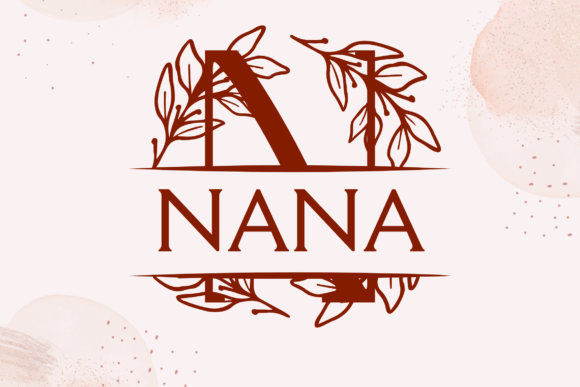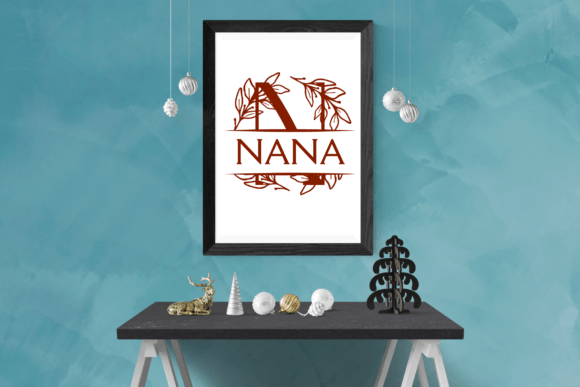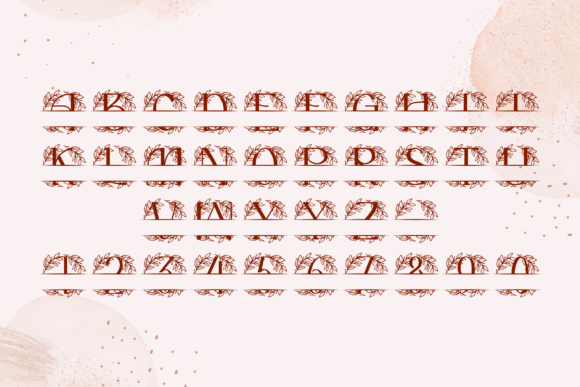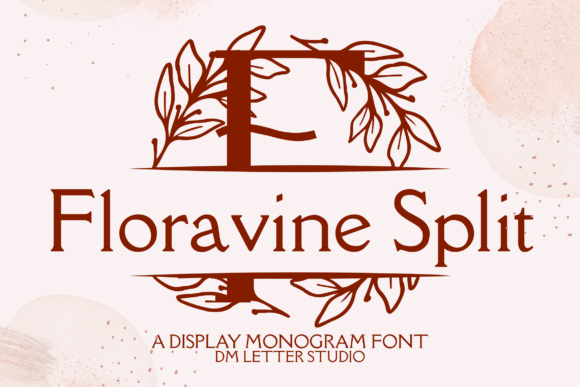
Introducing Floravine Split Monogram Font: Elevate Your Designs with Elegant Floral-Vine Emblems
Are you a designer or crafter looking for a unique and elegant way to add a personal touch to your creations? Look no further than the Floravine Split Monogram Font. This beautiful split monogram font transforms simple initials into stunning floral-vine emblems, perfect for wedding suites, boutique logos, keepsake gifts, wax seals, stationery, and luxury packaging.
What is Floravine Split Monogram Font?
Floravine Split Monogram Font is a specially designed font that takes a simple approach to creating elegant and sophisticated monograms. The font features a clean center split, making it ideal for names, dates, or short words. The strokes are smooth and balanced, ensuring that letters remain clear and legible at any size.
Key Features of Floravine Split Monogram Font
• Smooth and Balanced Strokes: The font features smooth and balanced strokes, making it perfect for use at any size.
• Clean Center Split: The clean center split design makes it easy to create beautiful monograms for names, dates, or short words.
• Open Counters and Clean Curves: The font’s open counters and clean curves ensure that tiny tags print crisply, while large signage looks elegant and premium.
Use Cases for Floravine Split Monogram Font
Floravine Split Monogram Font is versatile and can be used in a variety of design projects, including:
• Wedding Suites: Create beautiful and elegant wedding monograms for invitations, save-the-date cards, and other wedding stationery.
• Boutique Logos: Use the font to create a unique and sophisticated logo for your boutique or small business.
• Keatsake Gifts: Add a personal touch to keepsake gifts, such as jewelry, candles, or other personalized items.
• Wax Seals: Create elegant wax seals for letters, invitations, or other documents.
• Stationery: Use the font to create beautiful and elegant stationery, including letterheads, notecards, and journals.
• Luxury Packaging: Add a touch of elegance to luxury packaging, including high-end product packaging and gift boxes.
Benefits of Using Floravine Split Monogram Font
By using Floravine Split Monogram Font, you can:
• Elevate Your Designs: Add a touch of elegance and sophistication to your designs.
• Save Time: Quickly create beautiful monograms and floral-vine emblems in minutes.
• Personalize Your Creations: Add a personal touch to your designs, making them feel gift-ready and special.
Floravine Split Monogram Font is a beautiful and elegant font that can elevate your designs and add a personal touch to your creations. With its smooth and balanced strokes, clean center split, and open counters and clean curves, this font is perfect for a variety of design projects. Whether you’re a designer or crafter, Floravine Split Monogram Font is a great addition to your toolkit.